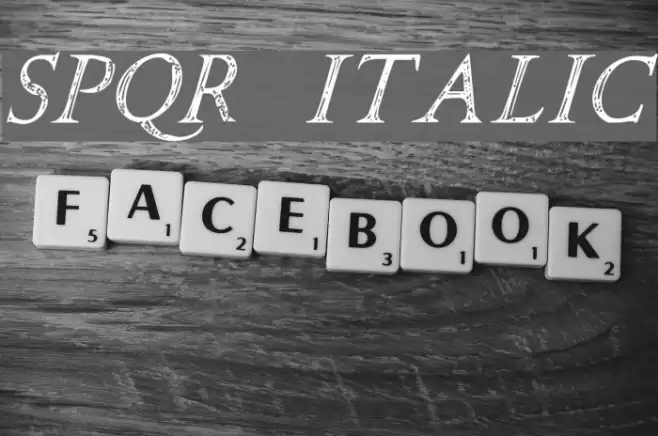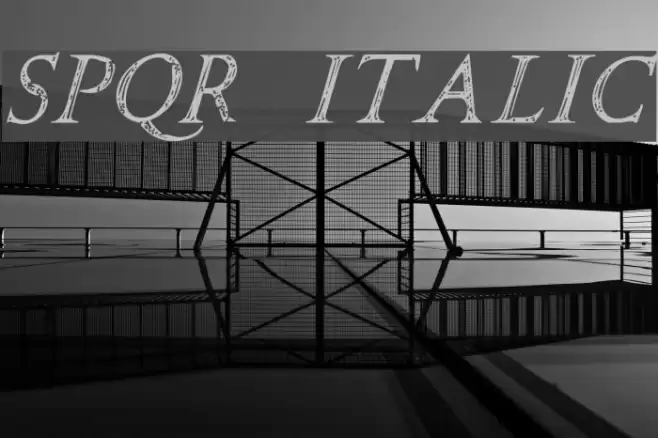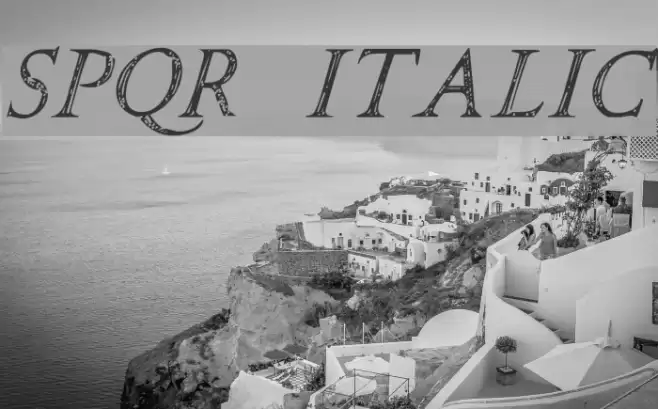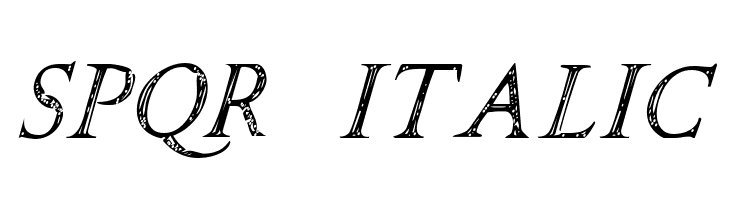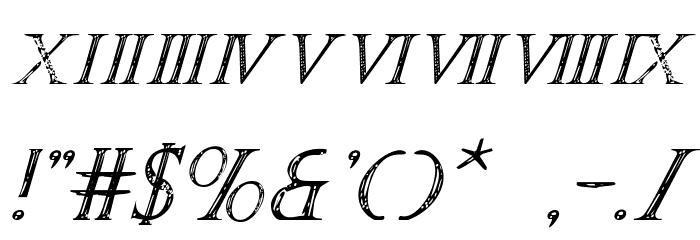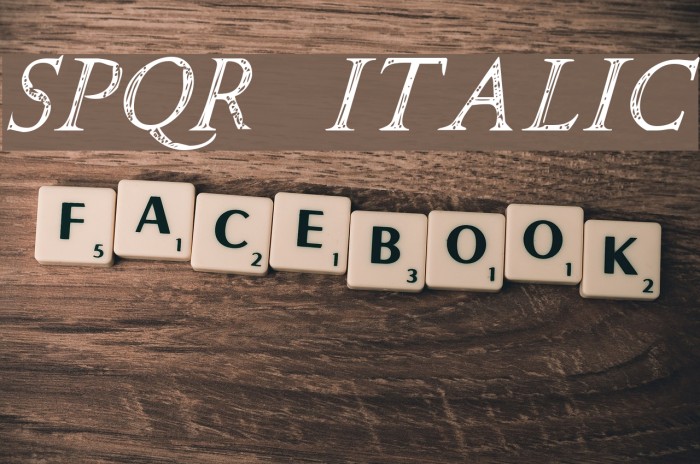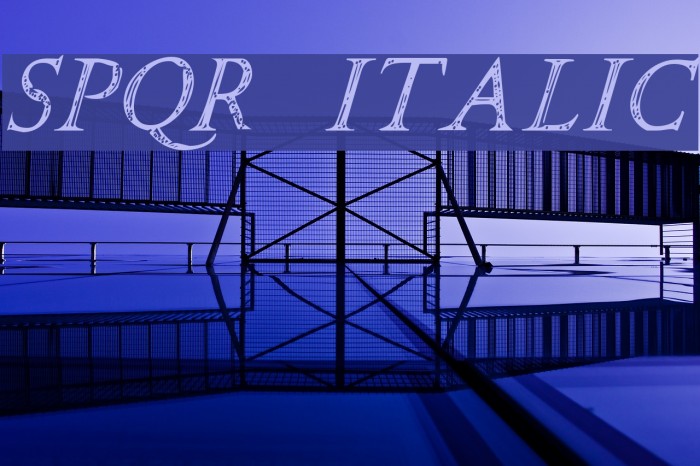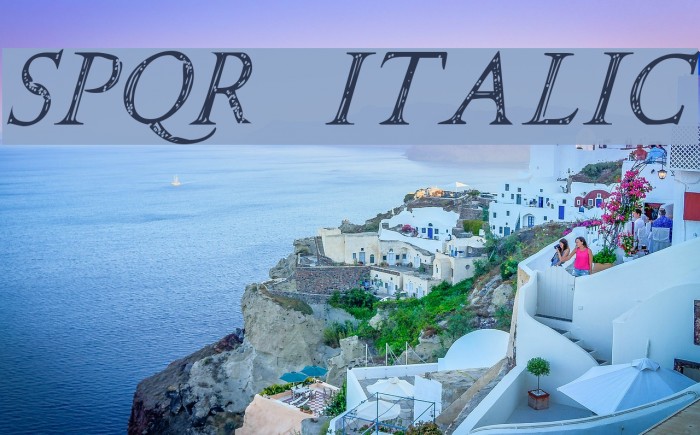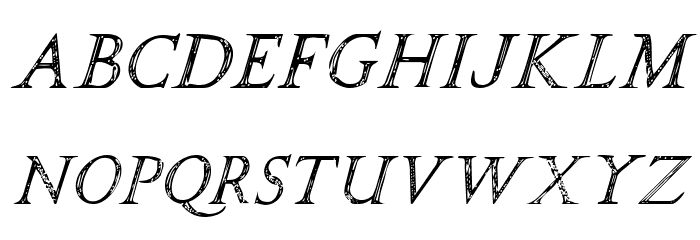
SPQR Italic Font
SPQR Italic Description
This font features a classic italic style with a distinct, decorative flair. Each character is adorned with intricate, textured lines that give it a hand-drawn appearance. The uppercase letters are bold and commanding, while the lowercase letters maintain a consistent elegance. The numerals are styled to match the alphabet, ensuring a cohesive look across all characters. Special characters are included, each with the same detailed design, making this font versatile for various applications. The overall aesthetic is reminiscent of ancient Roman inscriptions, adding a historical and artistic touch to any project.
A decorative italic font with a hand-drawn, textured style reminiscent of Roman inscriptions from Uncategorized fonts.
- Proposed Projects: Ideal for historical-themed designs, book covers, posters, and branding that requires a classic yet artistic touch.
- Overall Style: Classic, Decorative